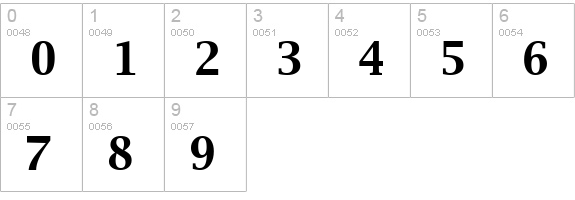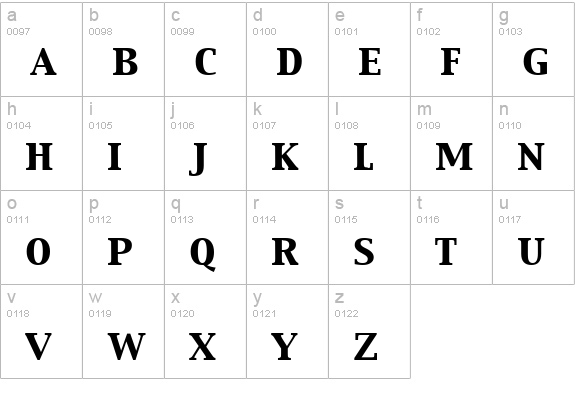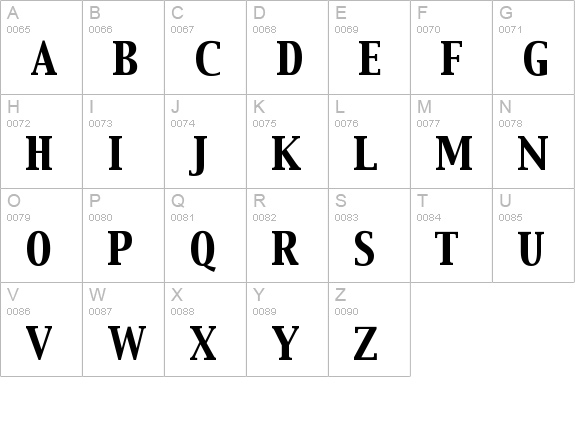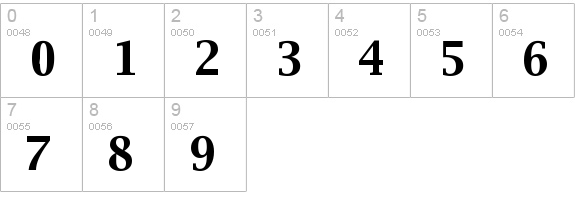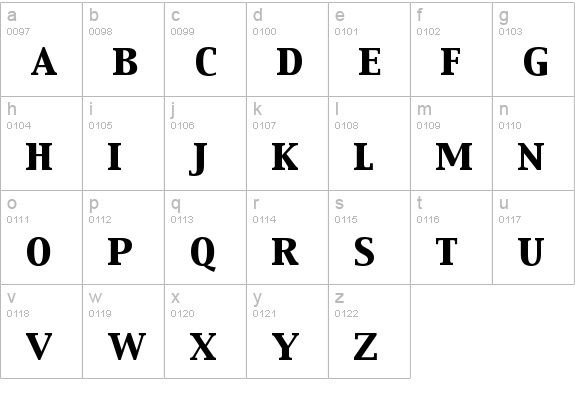
The Capitals font is a stunning display typeface that exudes elegance and sophistication. With its bold and commanding presence, this font is perfect for making a statement in your design projects. Featuring strong, uniform letterforms with a touch of modern flair, Capitals is sure to catch the eye and leave a lasting impression. Best of all, the Capitals font is available for free download at FontsMarket.com. Whether you're working on a branding project, a poster design, or any other creative endeavor, this versatile font will elevate your work to new heights. Don't miss out on the opportunity to add this exquisite font to your collection today!